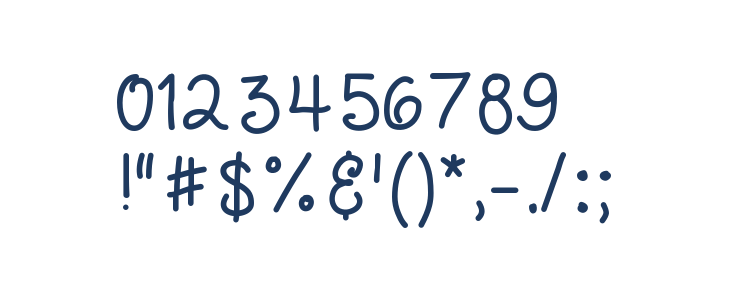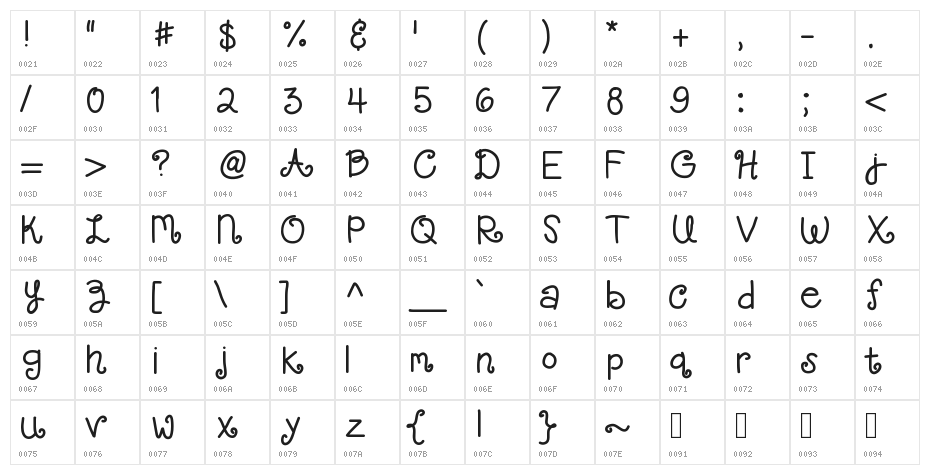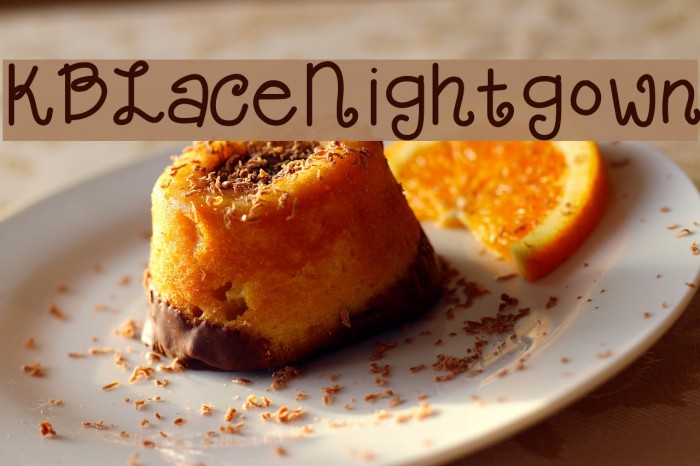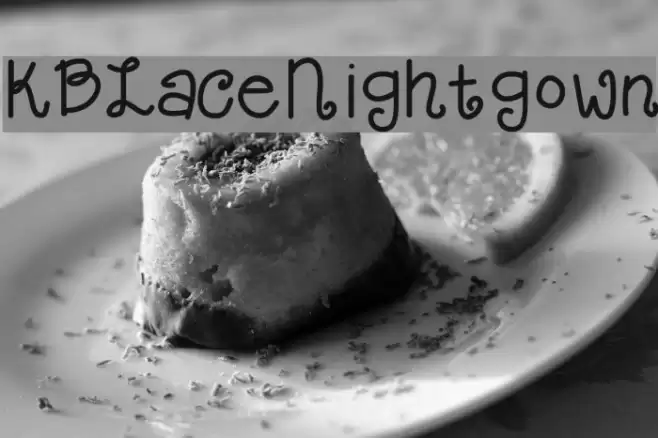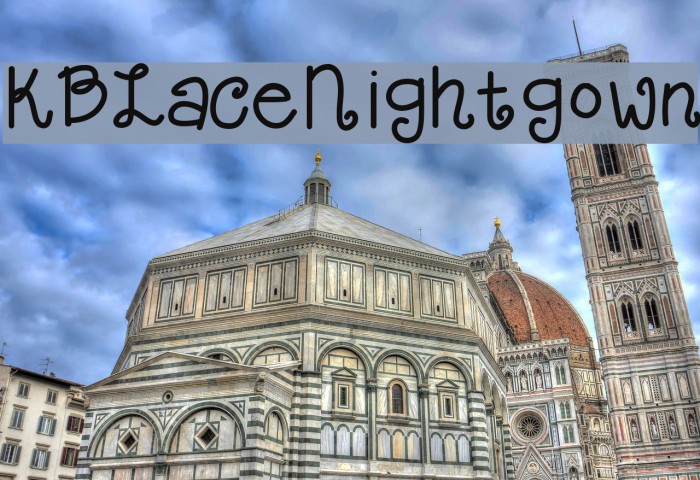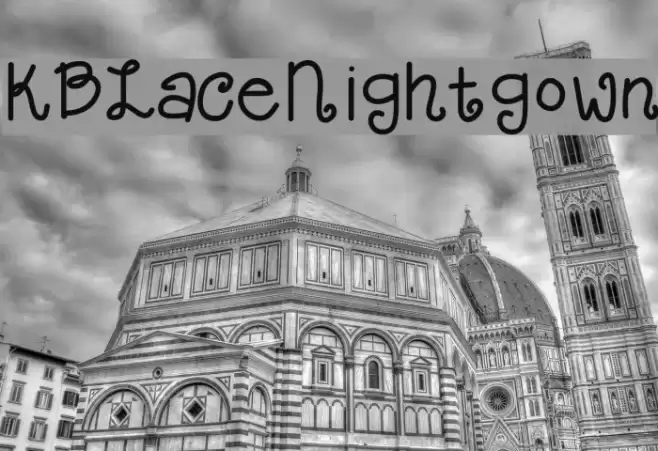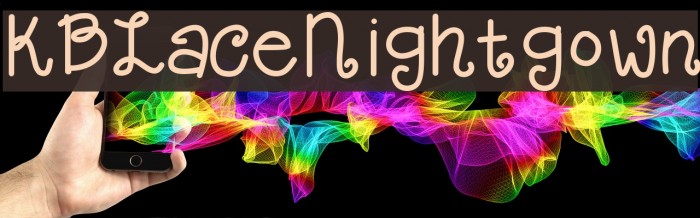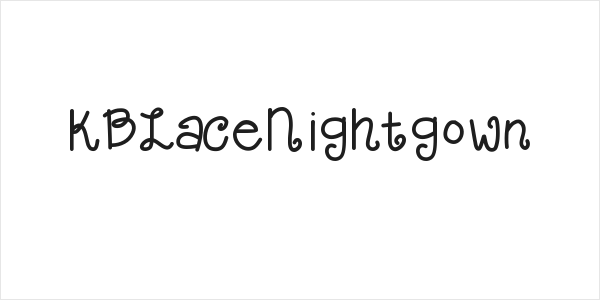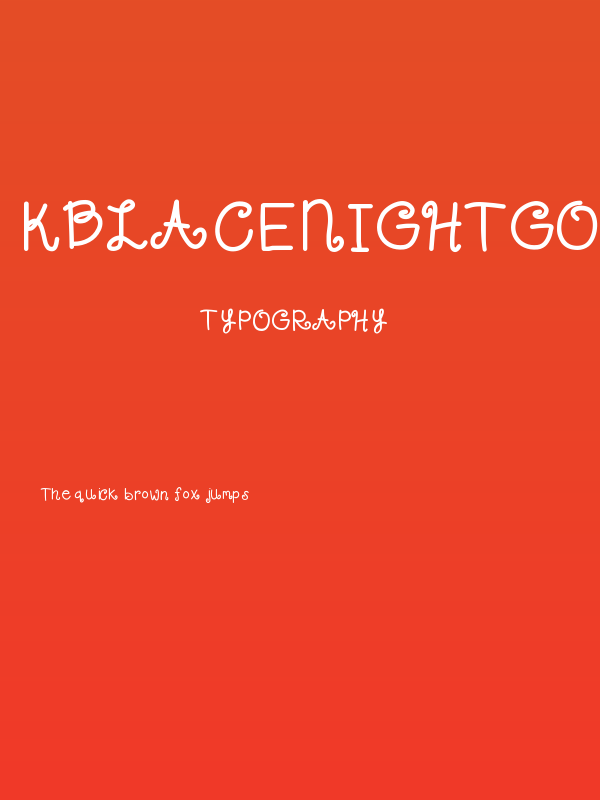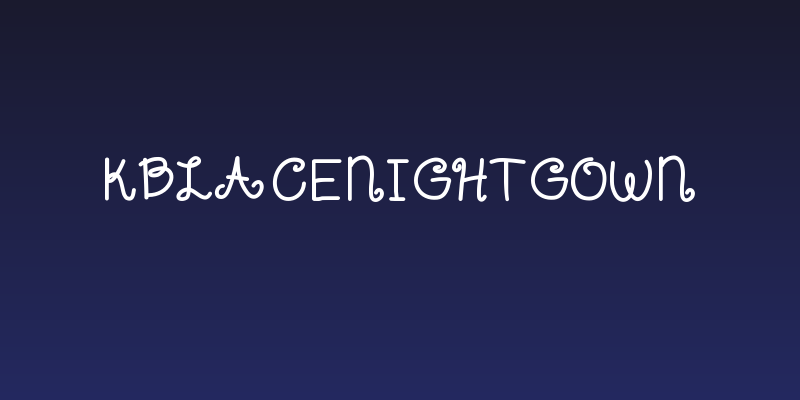
KBLaceNightgown Font
KBLaceNightgown Description
This font features a playful and whimsical design, characterized by its curly and flowing letterforms. Each character has a unique, hand-drawn quality, with rounded edges and a consistent stroke width that adds to its friendly appearance. The uppercase letters are bold and prominent, while the lowercase letters maintain a consistent style with slightly smaller proportions. Numbers and special characters follow the same design principles, ensuring a cohesive look across all elements. The font's overall appearance is casual and approachable, making it suitable for projects that require a touch of personality and creativity.
| Proposed Projects | Ideal for children's books, greeting cards, playful branding, and creative invitations. |